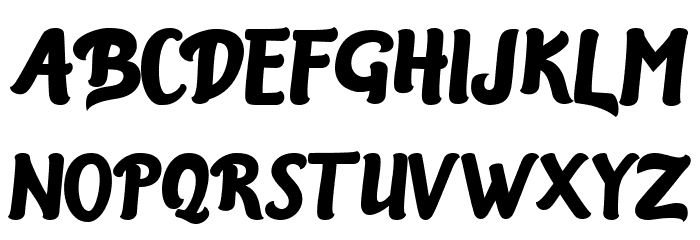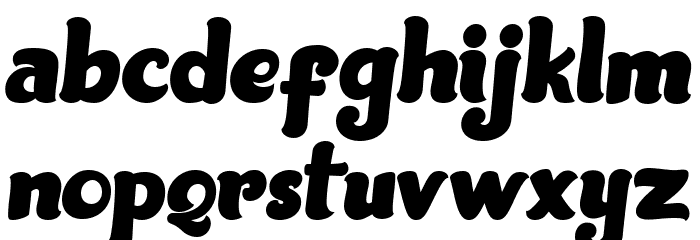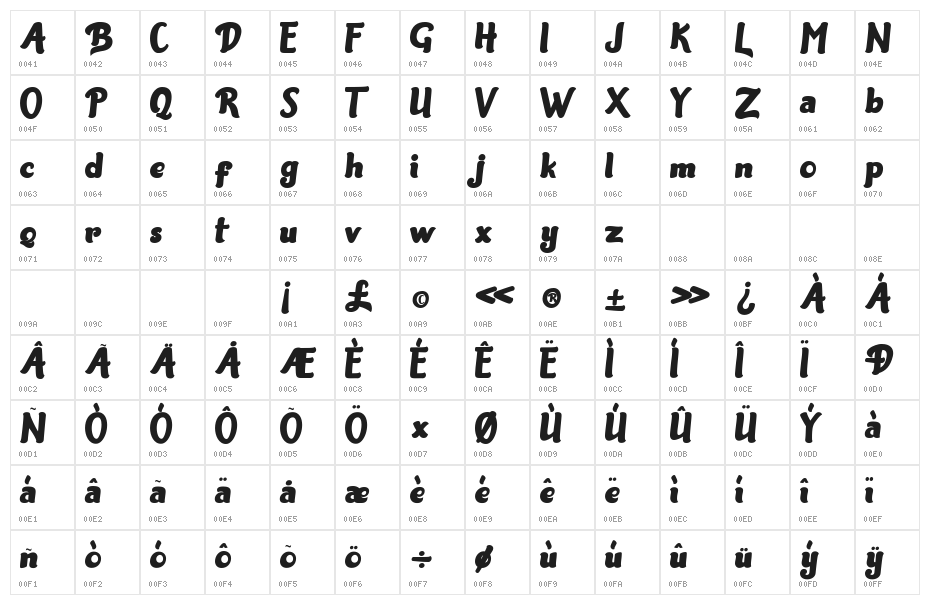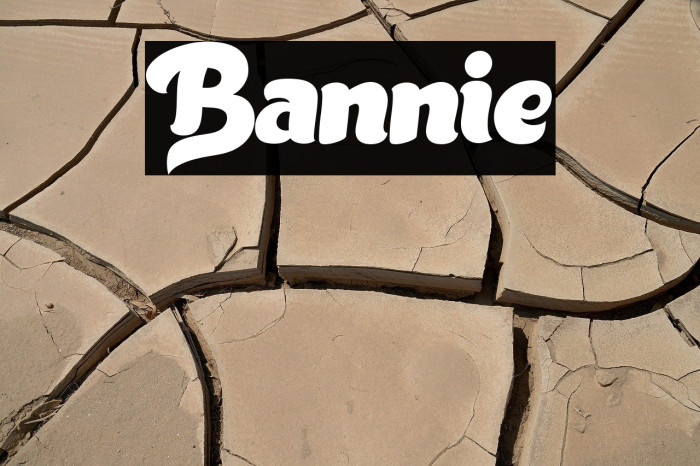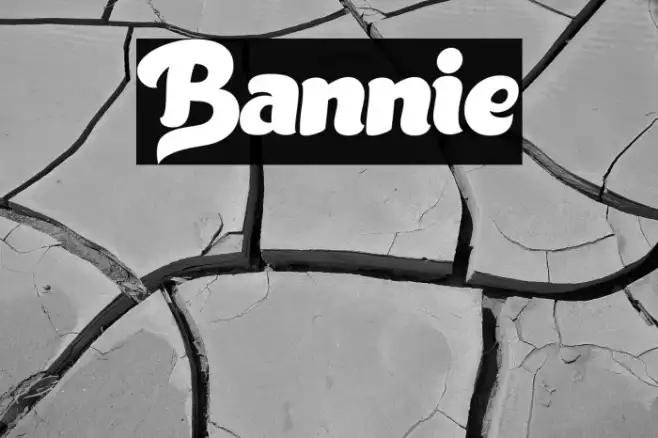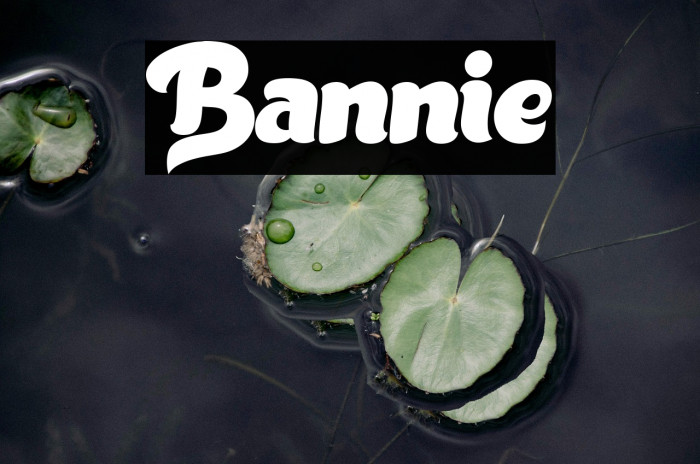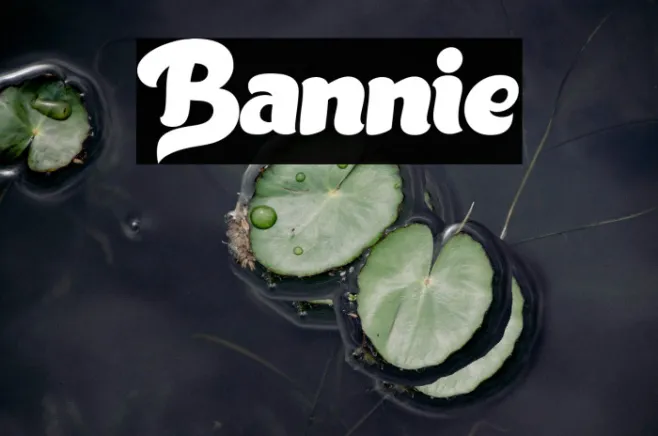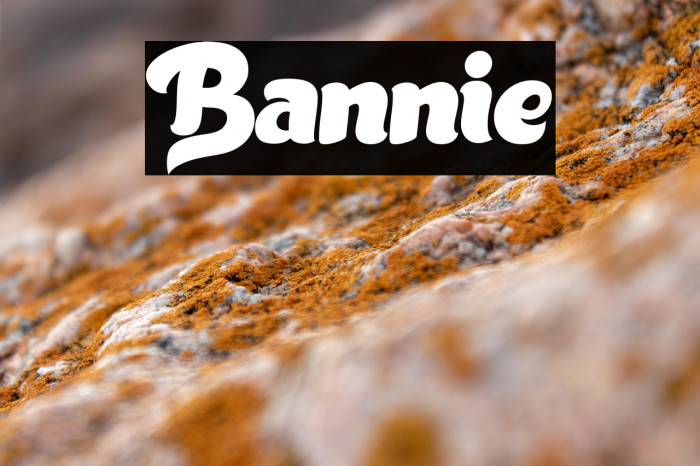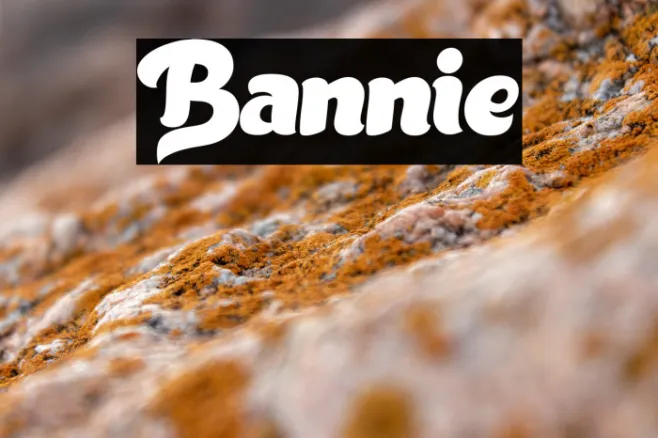
Bannie Font
This font features a bold and dynamic script style with a playful and energetic appearance. The characters are thick and rounded, giving a sense of friendliness and approachability. The strokes are smooth and flowing, with a slight slant that adds to the casual and informal feel. The uppercase letters are slightly larger and more pronounced, while the lowercase letters maintain a consistent size and shape. This font is versatile and can be used to convey a sense of fun and creativity, making it suitable for a variety of design projects.
A bold, playful script font with smooth, flowing strokes.
- Proposed Projects: Ideal for branding, packaging, posters, and social media graphics that require a lively and engaging touch.
- Overall Style: Playful